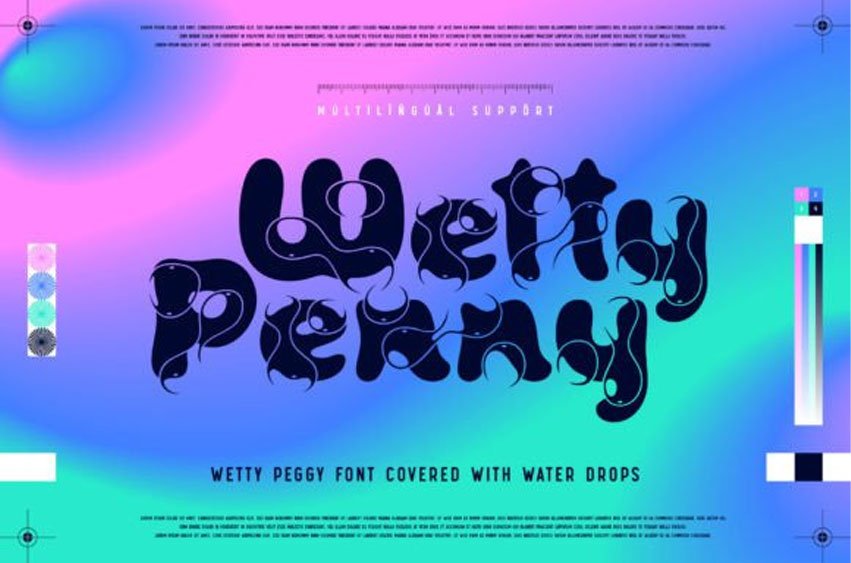
Wetty Penny Font
Wetty Penny Font Introducing a fun and quirky decorative display font: Wetty Penny.
Its unique and charming personality will help you create original designs!